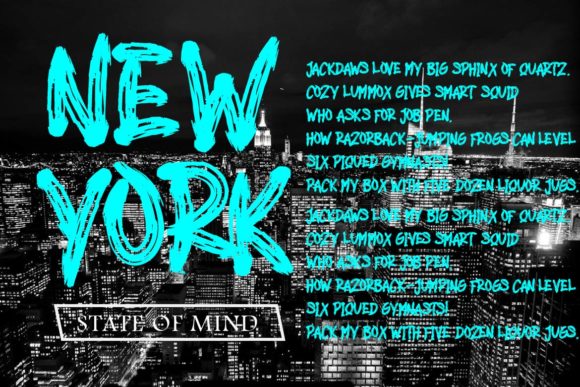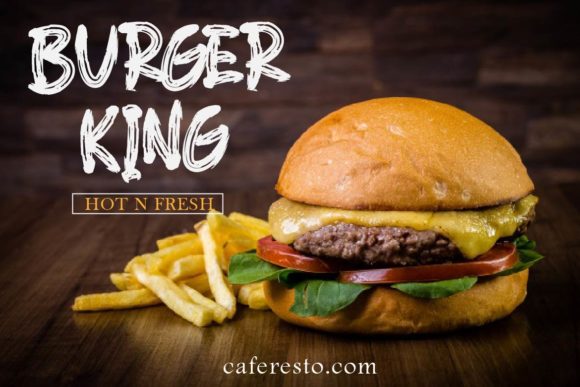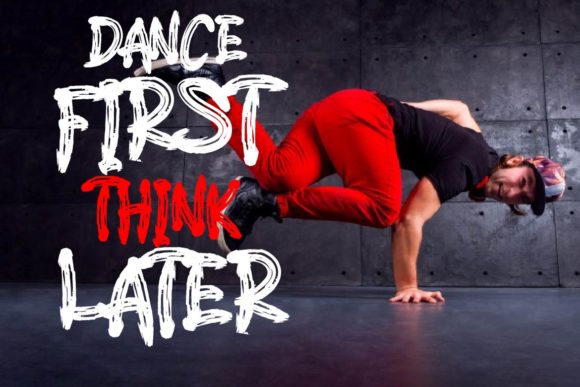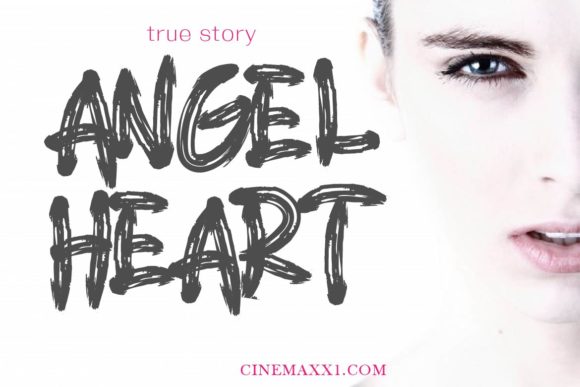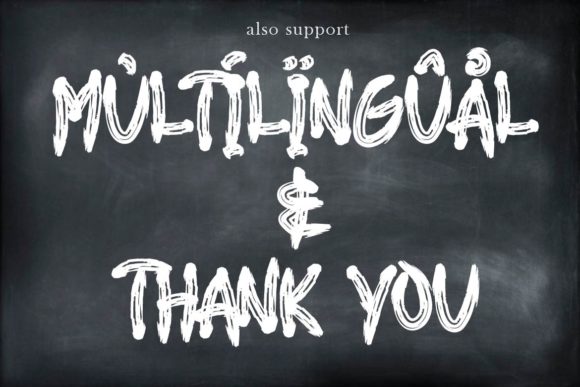
Introduction to Jungle Font Font
Fonts play a crucial role in design, and the Jungle to Jungle Font font is a typeface that brings both character and versatility to any project. Whether you’re working on a branding project, a website, or a print design, the Jungle to Jungle Font font offers a unique style that can elevate your work.
Jungle to Jungle is a natural and authentic font thatβs great for delivering any message with confidence and style.
Get inspired by its unique charm .
Key Features of Jungle to Jungle Font Font
Why Choose Jungle to Jungle Font Font?
The Jungle to Jungle Font font is more than just a typeface β it’s a design tool that helps you communicate your message with style and clarity. Its unique character set and versatile design make it suitable for a wide range of applications, from elegant invitations to bold headlines.
With its carefully crafted letterforms and balanced proportions, the Jungle to Jungle Font font ensures readability and visual appeal across all mediums.
What makes Jungle to Jungle Font font special?
The Jungle to Jungle Font font stands out with its unique design, exceptional readability, and versatility across various design applications.